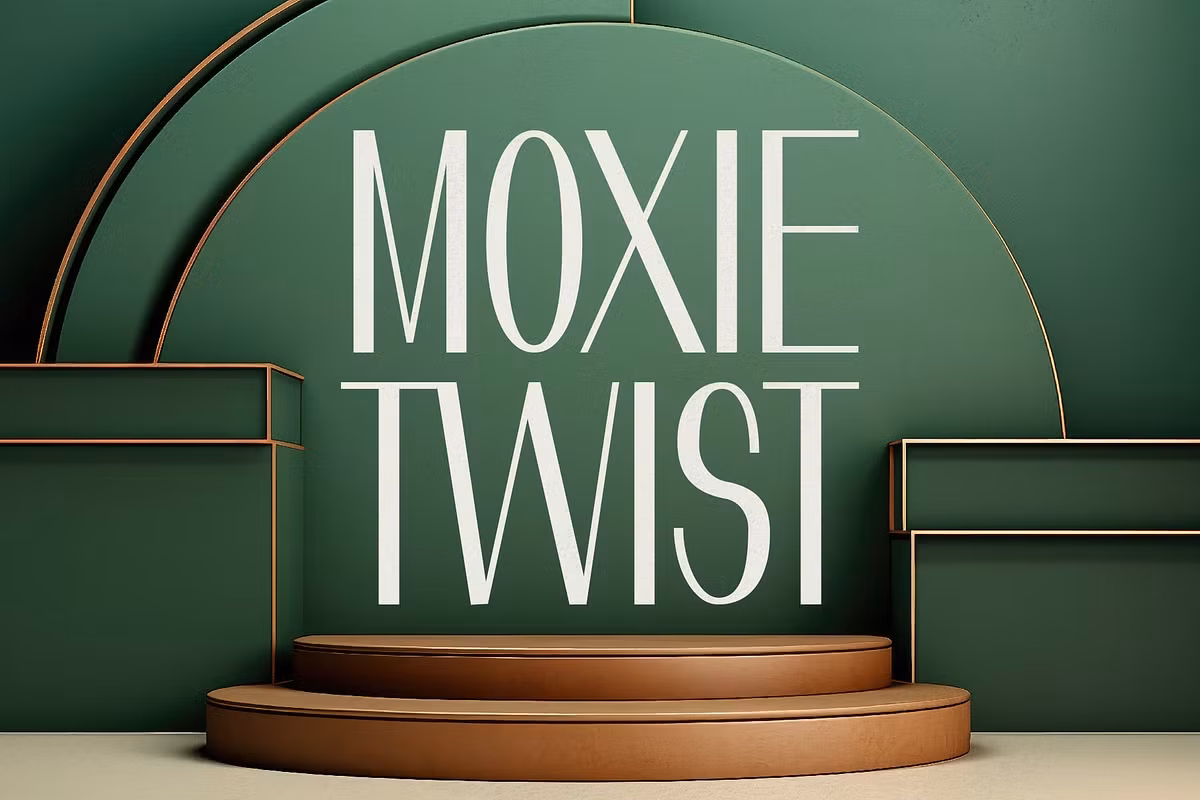
Moxie Twist - 1930s Typeface Free Download
Moxie Twist - 1930s Typeface Free Download is a bold and stylish typeface that takes inspiration from the iconic design trends of the 1930s. With its sharp, vintage strokes and unique letterforms, this font is perfect for retro branding, posters, packaging, logos, and any design that calls for a touch of old-world charm and sophistication.
Moxie Twist combines elements of Art Deco and early 20th-century typography, making it ideal for projects that need to evoke the elegance and flair of the 1930s. Whether you're designing for a vintage-themed event, a classic product, or creating a timeless logo, this typeface adds character and a dash of nostalgia to your designs.